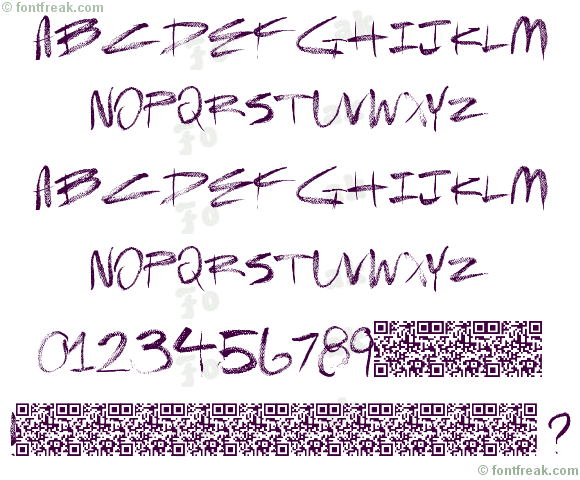
TrapHouse
About TrapHouse
TrapHouse, designed by XEROGRAPHER FONTS in 2015, is a striking display font that embodies an urban, gritty aesthetic. This font is classified as a decorative typeface, characterized by its expressive strokes and raw, hand-drawn feel. The stroke weight varies, creating a dynamic contrast that enhances its visual appeal. The spacing between characters is intentionally loose, giving each letter room to breathe, which adds to the overall rebellious vibe of the font.
The TrapHouse font is ideal for a variety of creative projects. Its unique style makes it perfect for designing eye-catching movie posters, where an edgy look can draw attention. Additionally, it works well for album artwork, especially in genres like hip-hop or street music, where authenticity is key. Fashion brands aiming for a bold, urban identity can also benefit from using TrapHouse in promotional materials. Furthermore, this font is suitable for social media graphics, where a standout visual can make posts more engaging.
The target audience for TrapHouse includes graphic designers looking for something unconventional, small business owners seeking to establish a unique brand identity, and content creators who want to add flair to their projects.
What truly sets the TrapHouse font apart is its ability to convey a sense of authenticity and attitude. Its rough edges and distinct character make it not just a typeface, but a statement. Whether used in digital or print formats, TrapHouse brings a powerful visual presence that resonates with those who appreciate creativity and individuality. For anyone interested in making a bold impression, the TrapHouse font free download offers an opportunity to elevate their design projects with a unique touch.